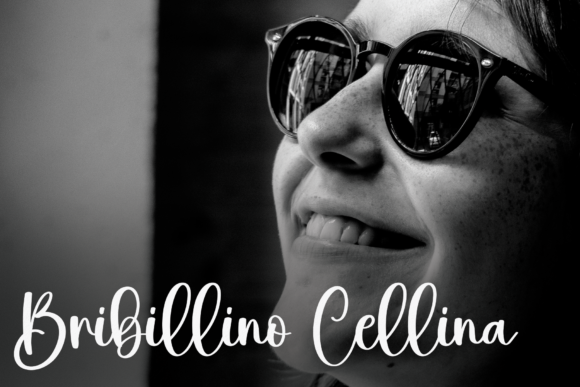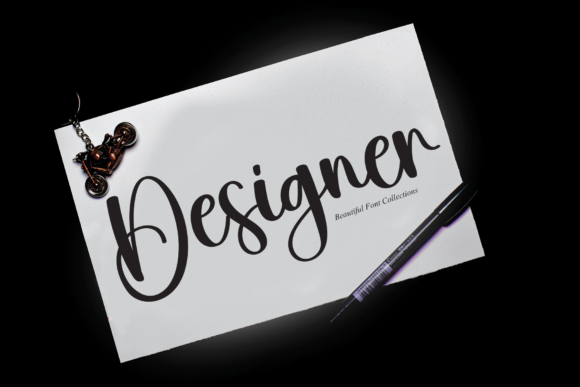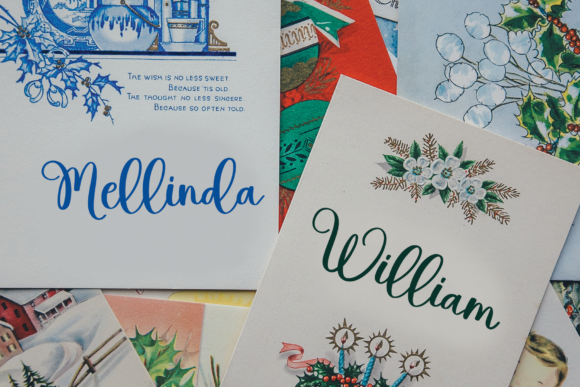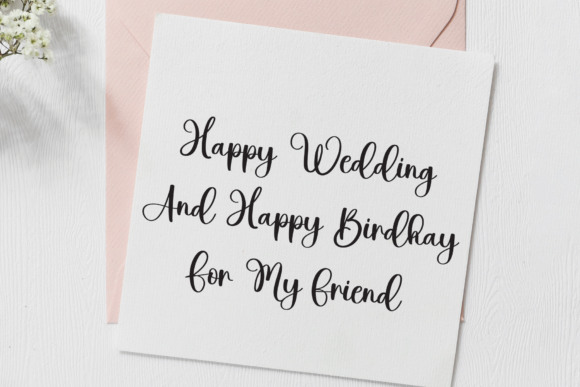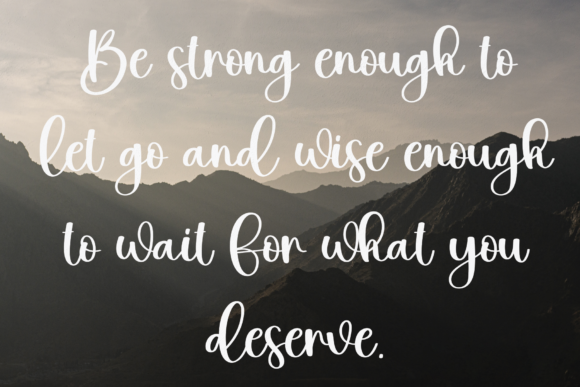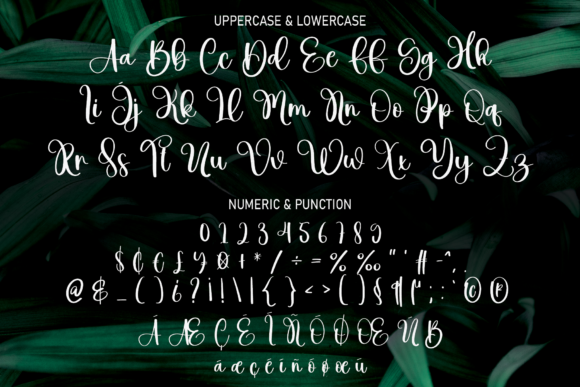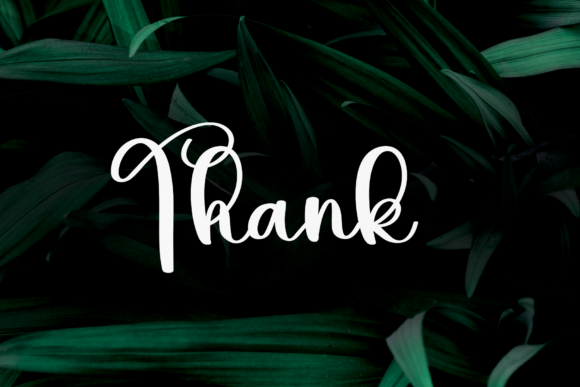
Narrative Font
About Narrative Font
“Narrative” is a font that encapsulates timeless class and modern style, creating a harmonious blend that’s perfect for a wide array of design projects. With its stylish and sophisticated script design, this font adds a touch of elegance to any branding endeavor.
The font’s versatility makes it an ideal choice for a range of applications, including logos, t-shirt printing, and other creative ventures. Its graceful appearance brings a sense of refinement to your designs, making them resonate with audiences seeking both classic and contemporary aesthetics.
In branding projects, “Narrative” communicates a sense of sophistication and credibility. Its flowing script conveys an air of professionalism, making it particularly well-suited for businesses that want to convey a premium image. The font’s presence elevates your brand identity, leaving a lasting impression on clients and customers.
For t-shirt designs, “Narrative” adds a touch of artistry and style. Its elegant strokes and well-balanced characters create a visual impact that aligns with modern design sensibilities. Whether it’s a bold statement or a subtle motif, this font enhances your t-shirt creations, transforming them into wearable pieces of art.
The versatility of “Narrative” extends to various contexts, from packaging to labels and more. Its ability to adapt ensures it excels across different mediums, helping you create compelling visuals that stand out. The font becomes an essential tool in your design arsenal, enabling you to craft captivating visuals that resonate with your audience.
In summary, “Narrative” is a font that effortlessly blends class and style, making it a compelling choice for those seeking to create sophisticated and chic designs. Its ability to convey timeless elegance while remaining adaptable to contemporary aesthetics ensures that it can enhance a wide range of projects, leaving a lasting impression on viewers.